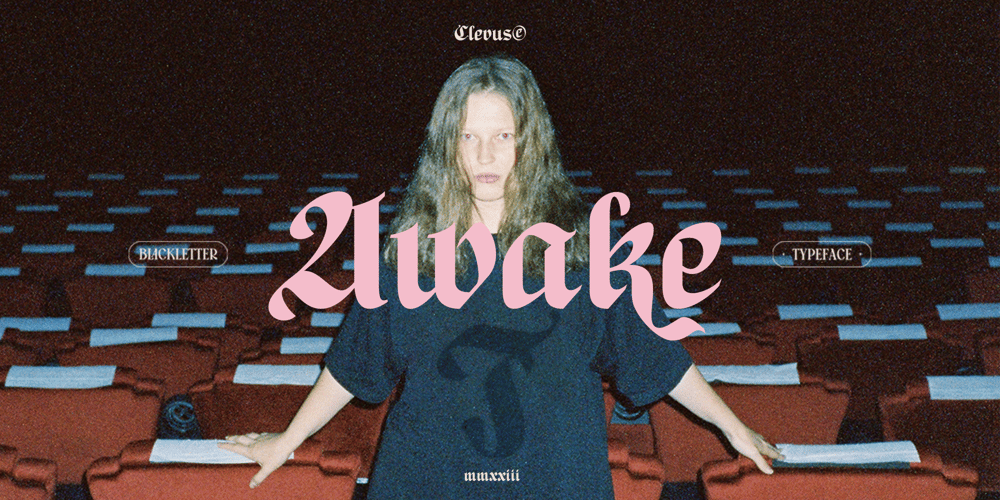
Awake Font Family was designed by Alfinu Zafir and published by Clevus. Awake contains 1 styles and family package options. Proudly present Awake is a classic black letter font with a touch of groovy.Comes with alternatives and ligatures, and perfect for tattoos clothing, labels and packaging, branding, or any Gothic-themed projects!Font Features :Lettres, numbers, symbols, and punctuation 23 alternates and ligatures No special software required they may be used even in canva, any basic program /website apps that allows standard fonts That’s it folks! Multilingual SupportLanguage Support: Danish, English, Estonian, Filipino, Finnish, French, Friulian, Galician, German, Gusii, Indonesian, Irish, Italian, Luxembourgish, Norwegian Bokmål, Norwegian Nynorsk, Nyankole, Oromo, Portuguese, Romansh, Rombo, Spanish, Swedish, Swiss-German, Uzbek (Latin).Follow My Shop For Upcoming Updates Including Additional Glyphs And Language Support. And Please Message Me If You Want Your Language Included or If There Are Any Features or Glyph Requests, Feel Free to Send me A Message. Kindly check over on Instagram! https://www.instagram.com/clevustudio/Have a Good Day !